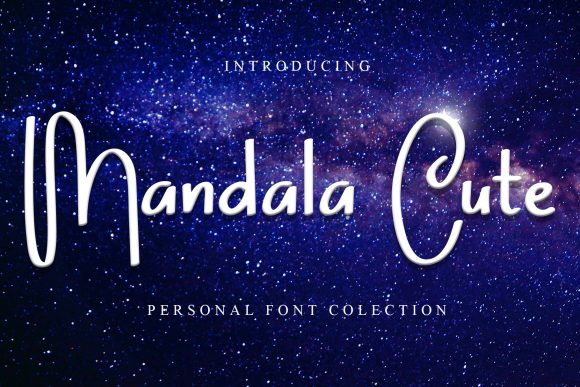
Unleash your creativity with Mandala Cute Font, a mesmerizing handwritten script that dances across your digital canvas with an enchanting charm. Crafted with elegance, this font is the epitome of artistic expression, ready to transform your projects into captivating works of art.
Indulge in the intricate beauty of Mandala Cute Font, where each letter flows effortlessly into the next, leaving a trail of visual delight. Its delicate curves and playful swirls evoke a sense of whimsy and magic, adding a touch of enchantment to your designs.
Step into a world where words take on a life of their own, gracefully adorning your CVs, posters, and invitations. Let Mandala Cute Font elevate your designs, making them stand out from the mundane and leaving a lasting impression on your audience.
Experience the versatility of Mandala Cute Font, effortlessly adapting to a symphony of creative endeavors. From elegant wedding invitations to playful social media posts, this font seamlessly blends into your vision, enhancing your messages with a touch of sophistication.
Immerse yourself in the timeless appeal of Mandala Cute Font, a font that transcends trends and remains a classic. Its enduring beauty ensures that your designs will radiate elegance and charm, captivating hearts and minds for generations to come.
Don't settle for ordinary fonts. Embrace the magic of Mandala Cute Font, where creativity takes center stage, and your projects blossom into masterpieces of visual art. Let this font ignite your imagination and embark on a journey of artistic exploration, leaving a trail of beauty in your wake.